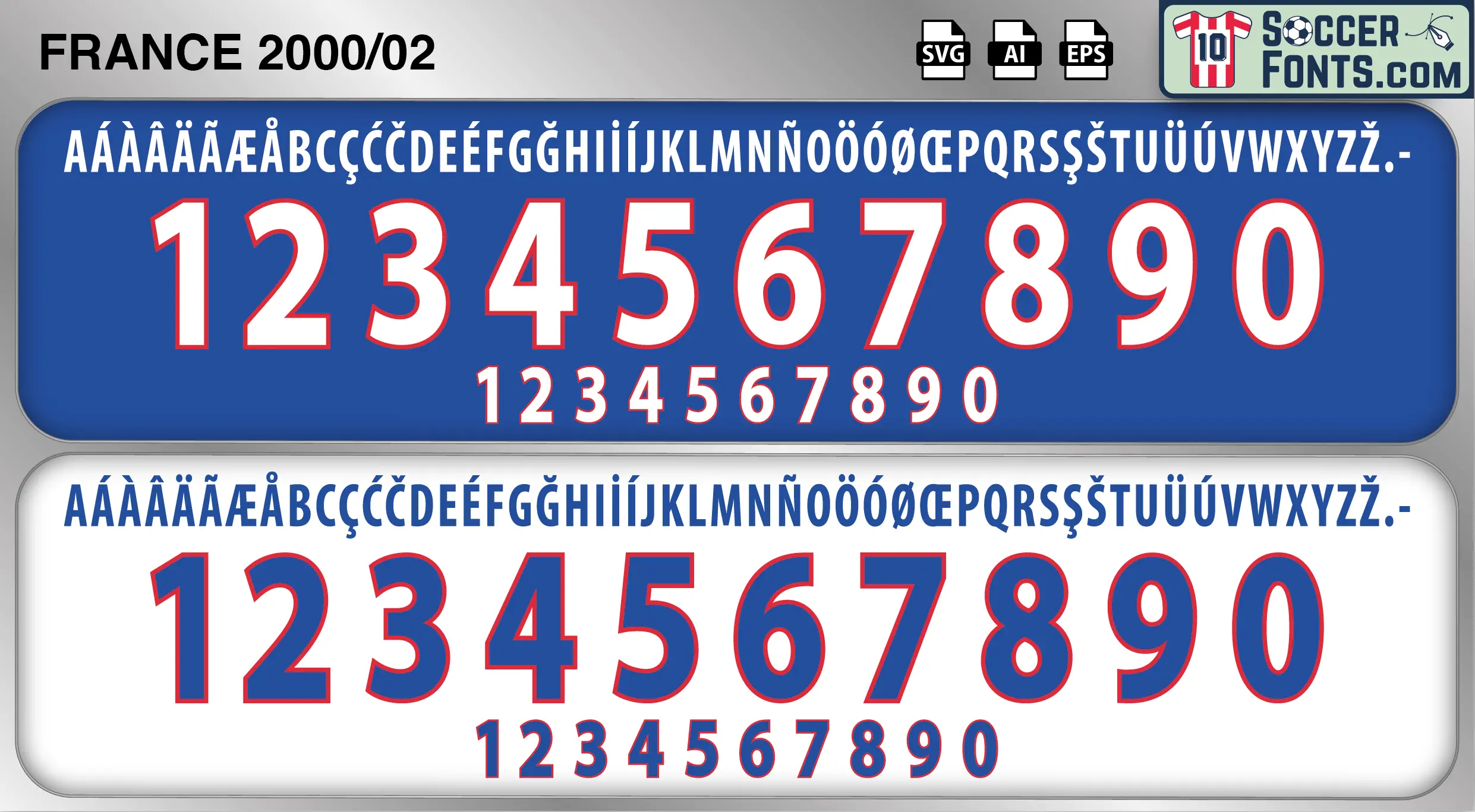
France 2000-02 Font
The France 2000-02 font is an editable soccer jersey lettering design in vector format inspired by the France kit style used during the 2000-02 football seasons. This football font artwork is prepared for football shirt recreations, custom jersey projects, football kit mockups and sports graphic design workflows.
The 2000-02 period represented the peak of one of the greatest generations in football history. Following their triumph at the 1998 FIFA World Cup, France entered UEFA EURO 2000 as world champions and successfully added another major trophy to their collection. The squad featured legendary players such as Zinedine Zidane, Thierry Henry, Didier Deschamps, Marcel Desailly, Patrick Vieira, Lilian Thuram and David Trezeguet. France combined technical quality, tactical intelligence and exceptional depth throughout the tournament, ultimately defeating Italy in the final through Trezeguet’s famous golden goal. The team was widely regarded as the strongest national side in world football during this era.
The France 2000-02 font became associated with a generation that achieved international dominance and established itself among the greatest teams ever assembled. France shirts from this period remain highly collectible because of their connection with UEFA EURO 2000 success, Zidane’s influence and one of the most talented squads in football history. The France 2000-02 font reflects a golden age of French football, capturing a period when Les Bleus stood at the summit of the international game and inspired supporters around the world.